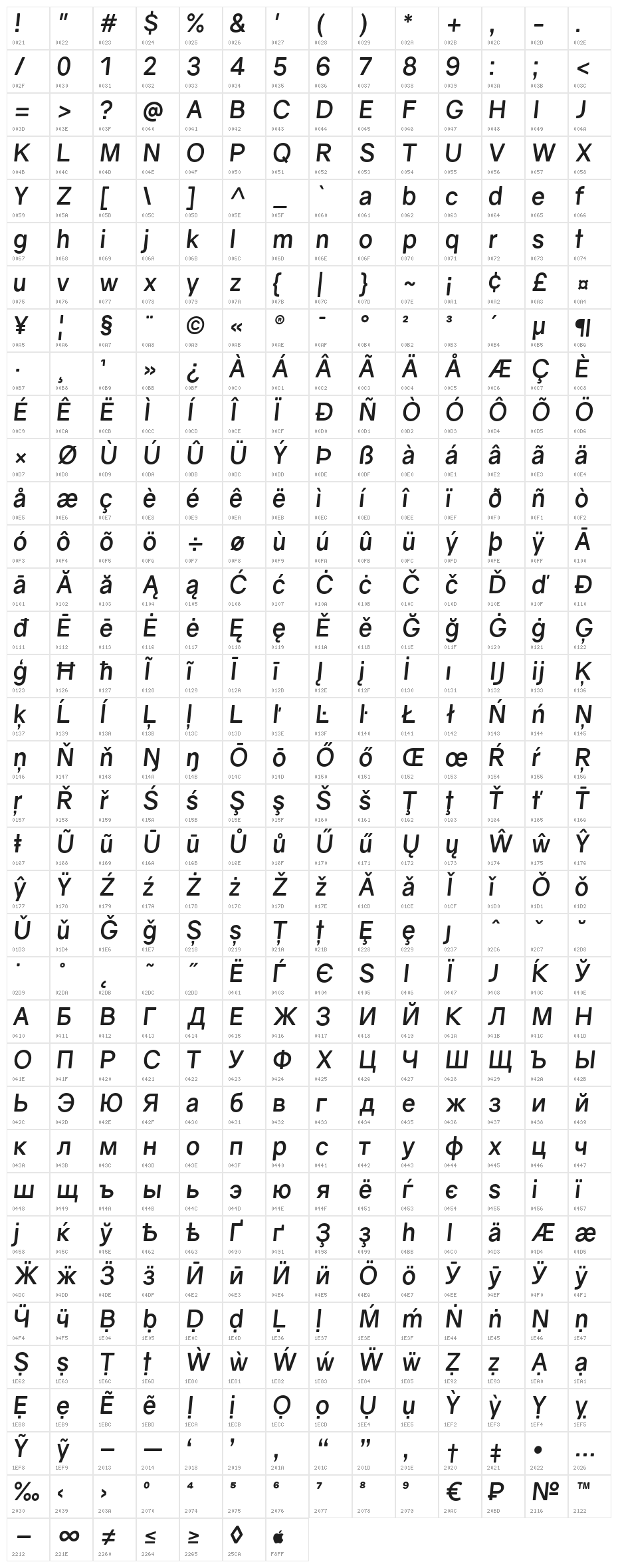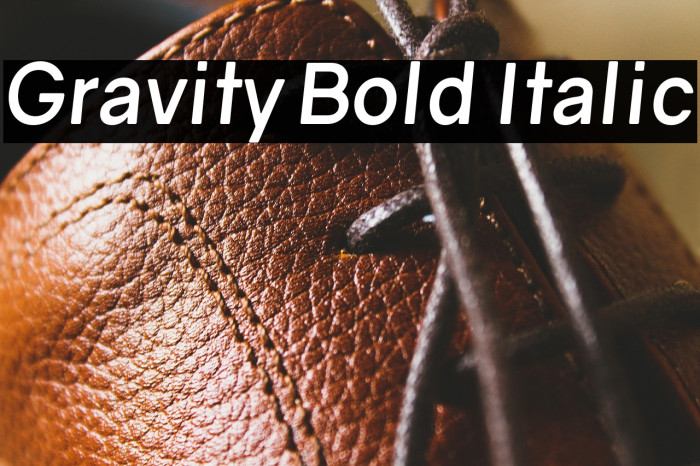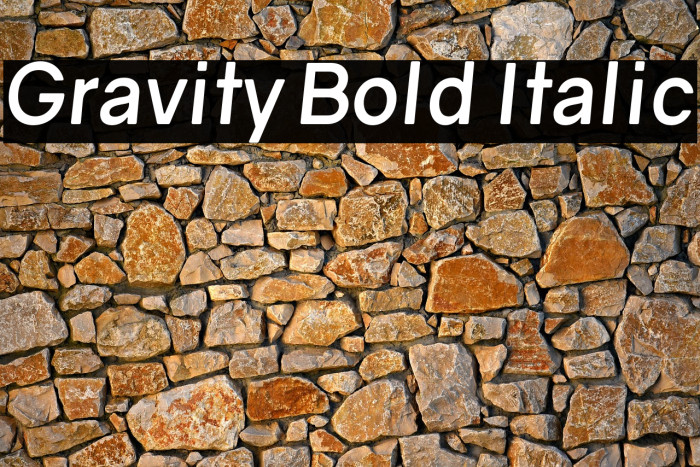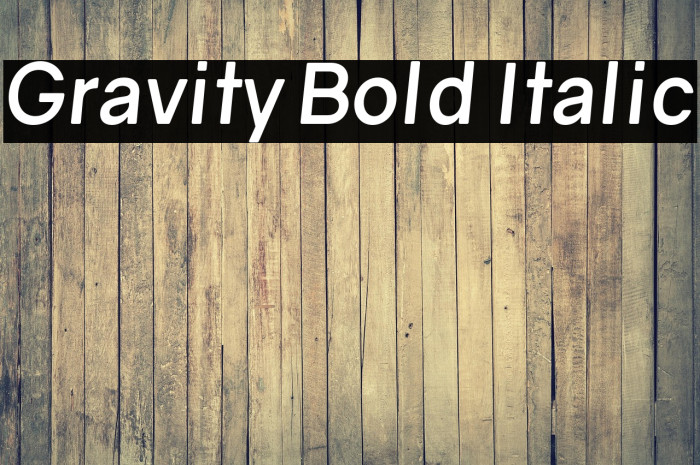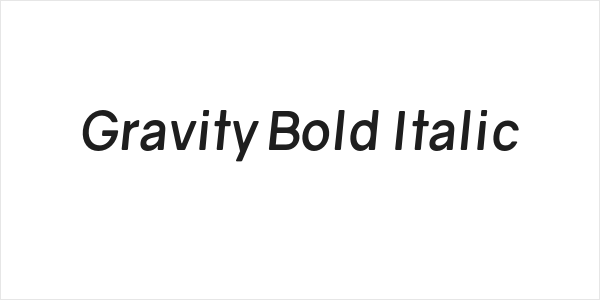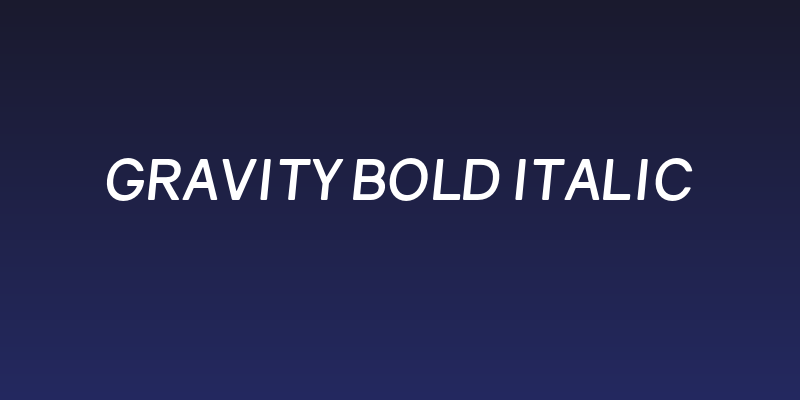
Gravity Bold Italic Font
Gravity Bold Italic Description
This font features a bold and italic style, combining a strong presence with a dynamic slant. The characters are well-defined with smooth curves and a consistent stroke width, giving it a modern and professional appearance. The uppercase and lowercase letters maintain a uniform height, enhancing readability. The numerals are clear and distinct, while the special characters are crafted with precision, ensuring versatility in various design contexts. The overall design is sleek and contemporary, suitable for a wide range of applications.
Use CaseHeadlines, Logos, Digital Media
Proposed ProjectsIdeal for branding, advertising, headlines, and digital media projects.